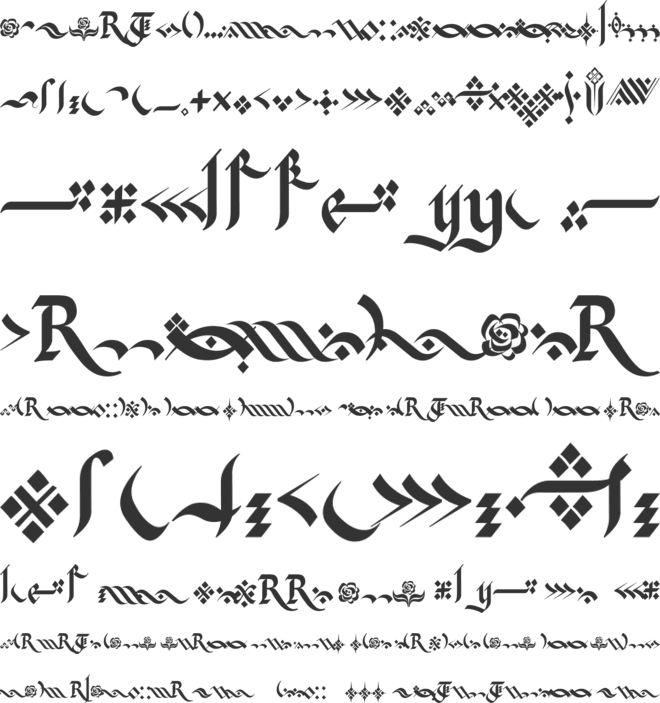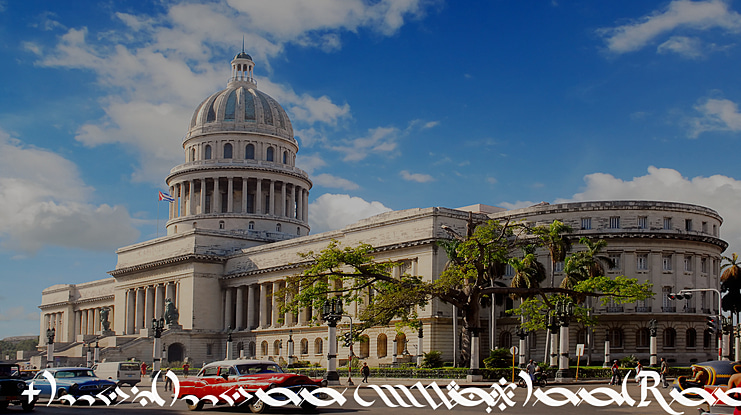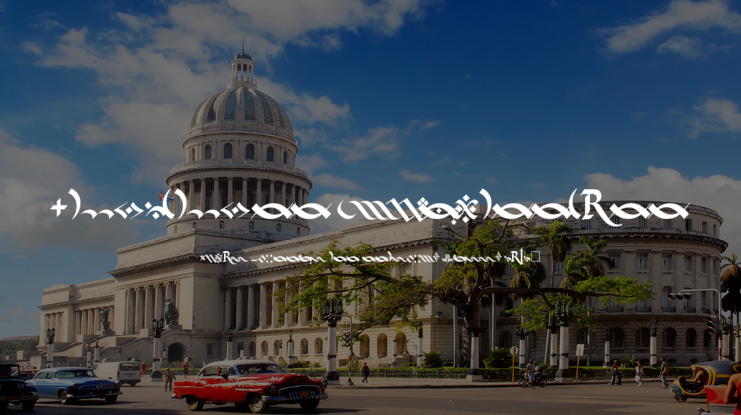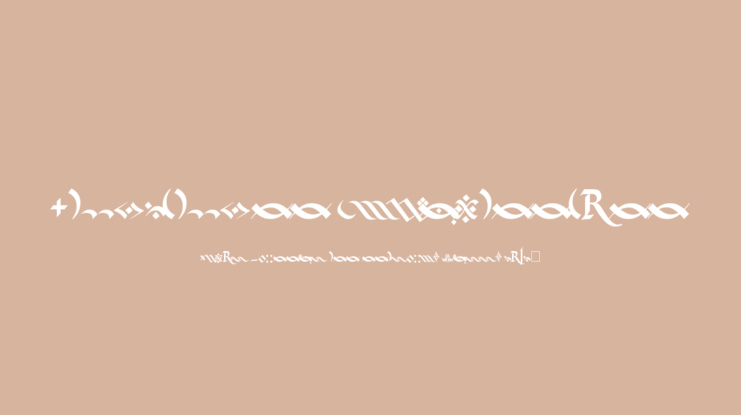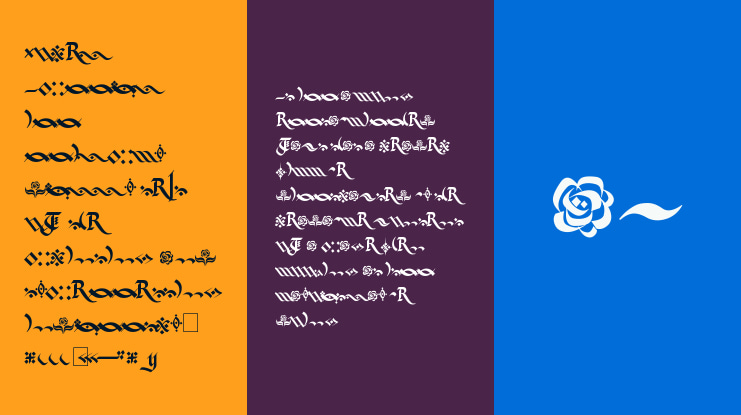
Kingthings Flourishes Font
Kingthings Flourishes - this is not a font it is an adjunct to the 'real' calligraphic fonts like Petrock and Calligraphica and can be used in graphics programs to add flourishes.